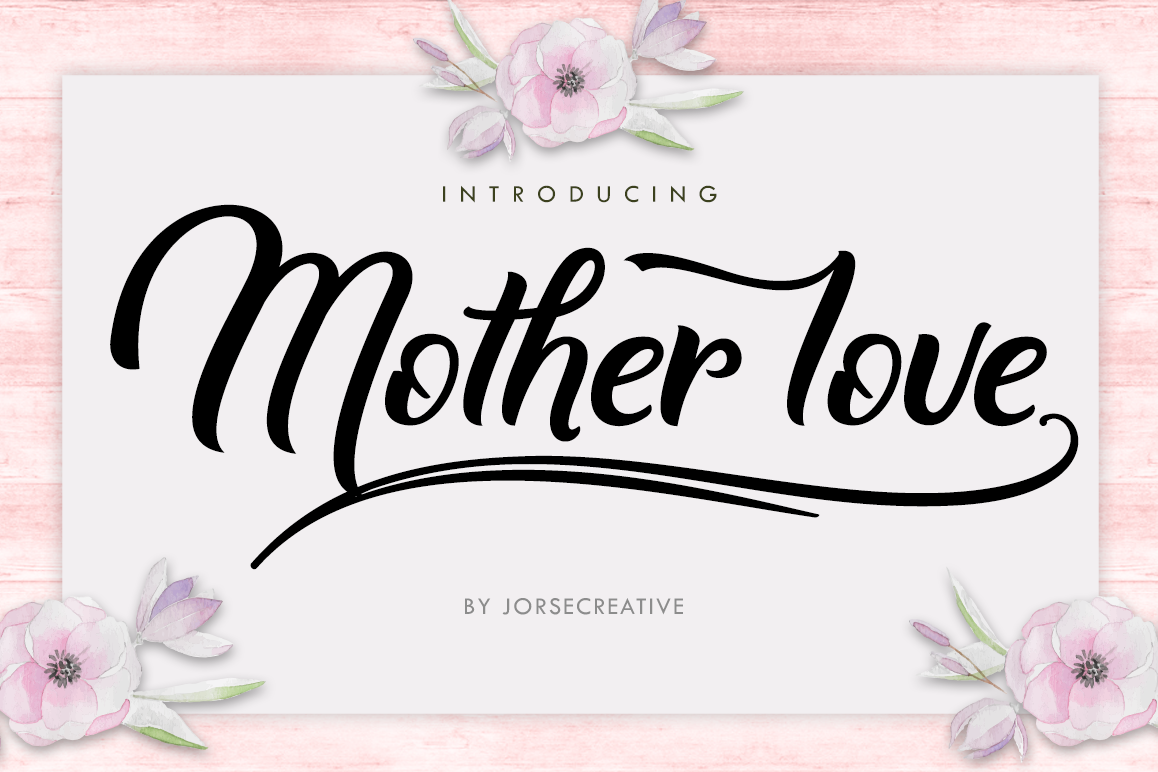
Mother love
Introducing!!Mother love is another lovely modern calligraphy typefaces, which is combining the style of classic calligraphy with an modern style. combines from copperplate to contemporary typeface with a dancing baseline, modern and elegant touch. Mother love features 345 glyphs and alternate characters Include . including initial and terminal letters, alternates, ligatures and multiple language support..The Features of this fonts is ;
• Standart ligatures
• Swash Alternates
• Stylistic sets
• PUA Unicode (Private Use Areas)